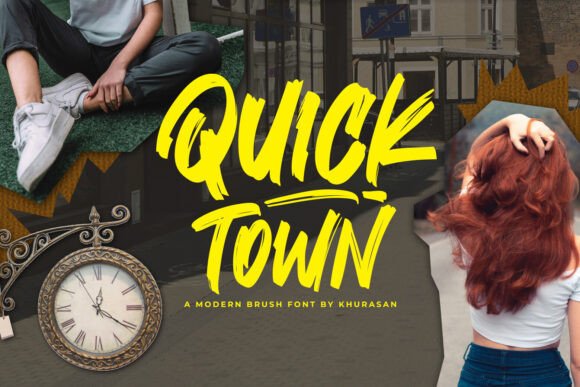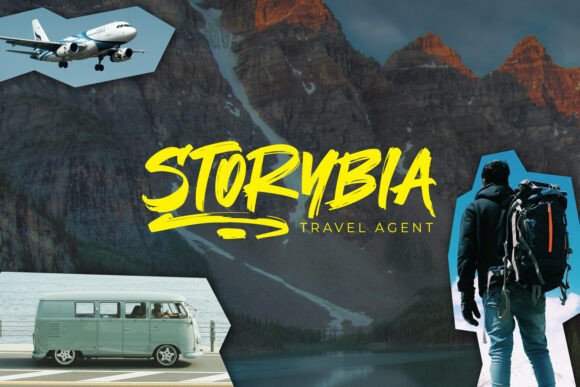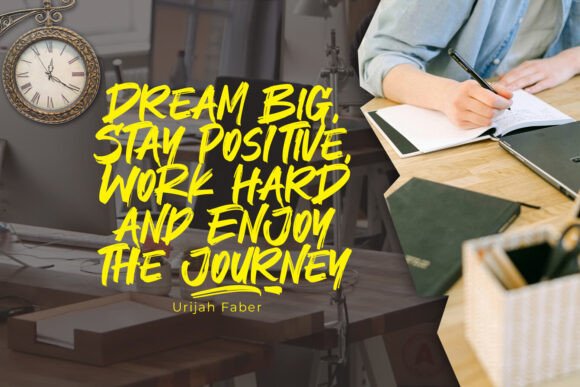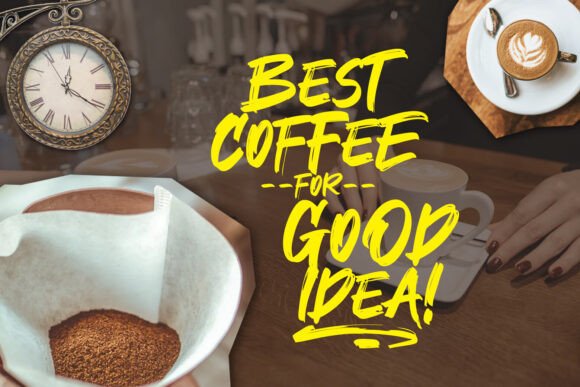
Quick Town Font
About the Quick Town Font
Make a bold statement with Quick Town Font, a powerful and memorable font. Quick Town is a modern brush font perfect for posters, logos, magazines, book covers, banners, and many more! Get this quirky display font, and use it to create lovely designs! It can easily be matched to an incredibly large set of projects, so add it to your creative ideas and notice how it makes them stand out!
Quick Town’s bold, slightly quirky personality makes it ideal for headlines, short impactful statements, and branding projects requiring a playful yet modern feel. It excels in posters, logos, and packaging where its brush strokes add a touch of handcrafted authenticity. However, its less-than-optimal legibility makes it unsuitable for body text or UI elements requiring extended reading.
Consider pairing Quick Town with a clean sans-serif like Open Sans for a balanced contrast, or a classic serif such as Garamond for a more sophisticated feel. For a more playful aesthetic, a geometric sans-serif like Futura would create a vibrant, energetic combination.
The font’s energetic nature works best for brands targeting a younger demographic, or projects focusing on creativity, entertainment, and handcrafted goods. Avoid using it where a sense of professionalism or refined elegance is paramount.
Quick Town Font Usage Examples
Quick Town Font Example